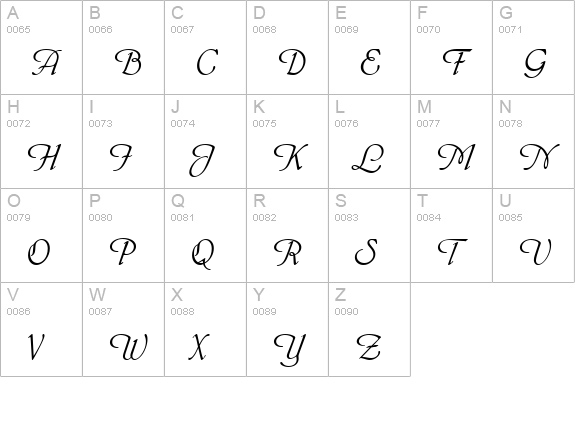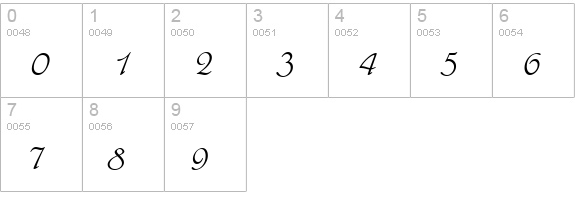
PhyllisD Font Details
Introducing PhyllisD, a stunningly elegant font that exudes sophistication and charm. This versatile typeface is perfect for adding a touch of class to any design project, whether it be a wedding invitation, a logo, or a website header. PhyllisD features exquisite letterforms with delicate curves and fine details, making it a truly timeless choice. Its unique blend of classic and modern elements creates a captivating visual appeal that is sure to catch the eye. But what sets PhyllisD apart from other fonts is its accessibility. This remarkable font is freely available to download at FontsMarket.com, allowing designers and creatives to unleash their creativity without any limitations. Say goodbye to expensive font licenses and hello to the freedom of expression! With PhyllisD, you can explore endless design possibilities, from elegant branding projects to sophisticated editorial layouts. Its extensive character set includes a range of stylistic alternates, ligatures, and accents, ensuring that you have all the tools you need to create truly exceptional designs. So why wait? Download PhyllisD today and embark on a journey of unlimited creativity. Whether you're a seasoned designer or just starting out, this free font will undoubtedly become your go-to choice for adding a touch of elegance to your projects. Don't miss out on this opportunity to elevate your designs with PhyllisD's timeless beauty.